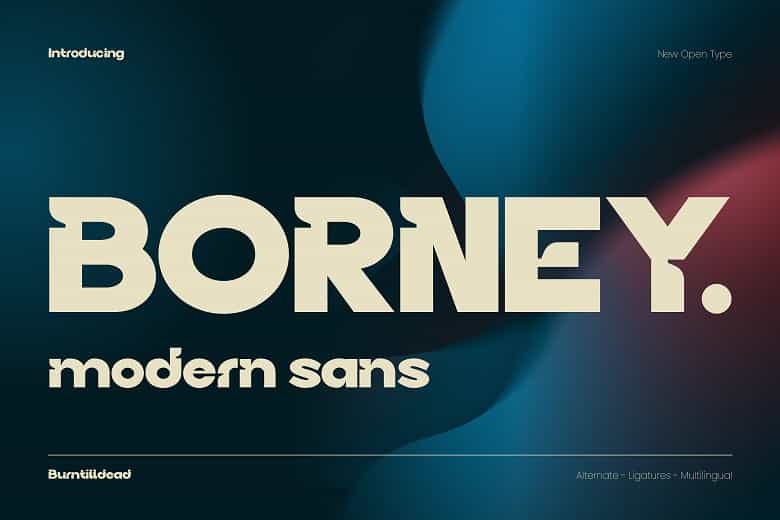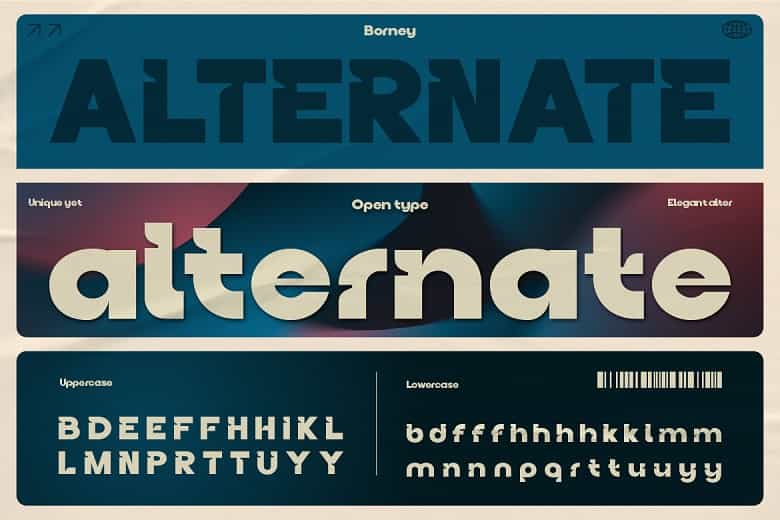
Borney is a bold modern sans font that is ideal for today’s designs and will suit any of your projects. This present post-modern sans-serif font defined by the features of having a very strong and very clear lines with minimalistic design and also simplicity as one of its aesthetic.